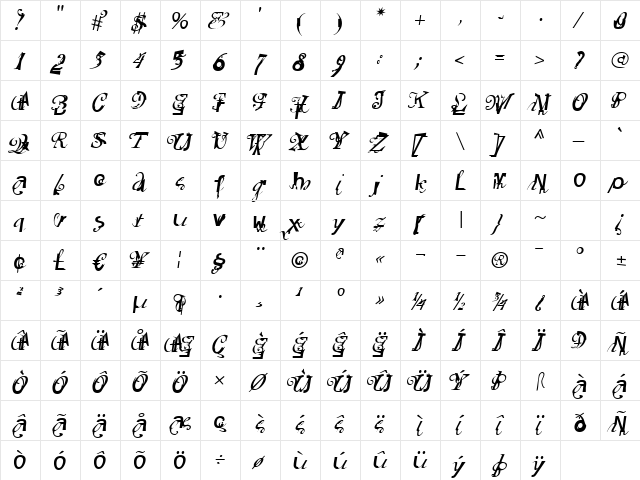
ElliottsBlueEyeShadow Regular
Design Context for ElliottsBlueEyeShadow Typeface
ElliottsBlueEyeShadow brings ornamental detail and strong personality to headlines and identities, where visual impact matters more than quiet functionality.
Font Pairing: Pair with a clean neutral sans-serif for body copy to let ElliottsBlueEyeShadow's character lead without overwhelming the composition.
Pro Tip: Treat ElliottsBlueEyeShadow as the centrepiece of your typographic hierarchy. One strong heading set in a decorative face can carry an entire layout.